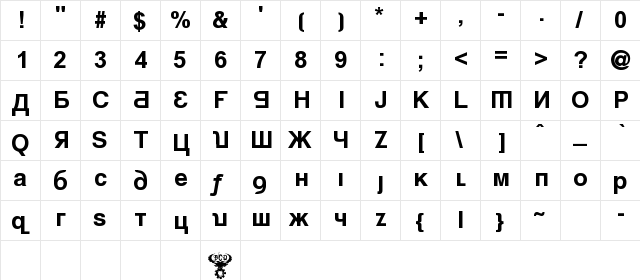
Kremlin Minister Bold
Design Context for Kremlin Minister Typeface
Kremlin Minister offers clean, dependable letterforms without strong stylistic allegiance, making it a practical choice for designers who need flexibility. The heavy weight commands attention and anchors typographic hierarchies.